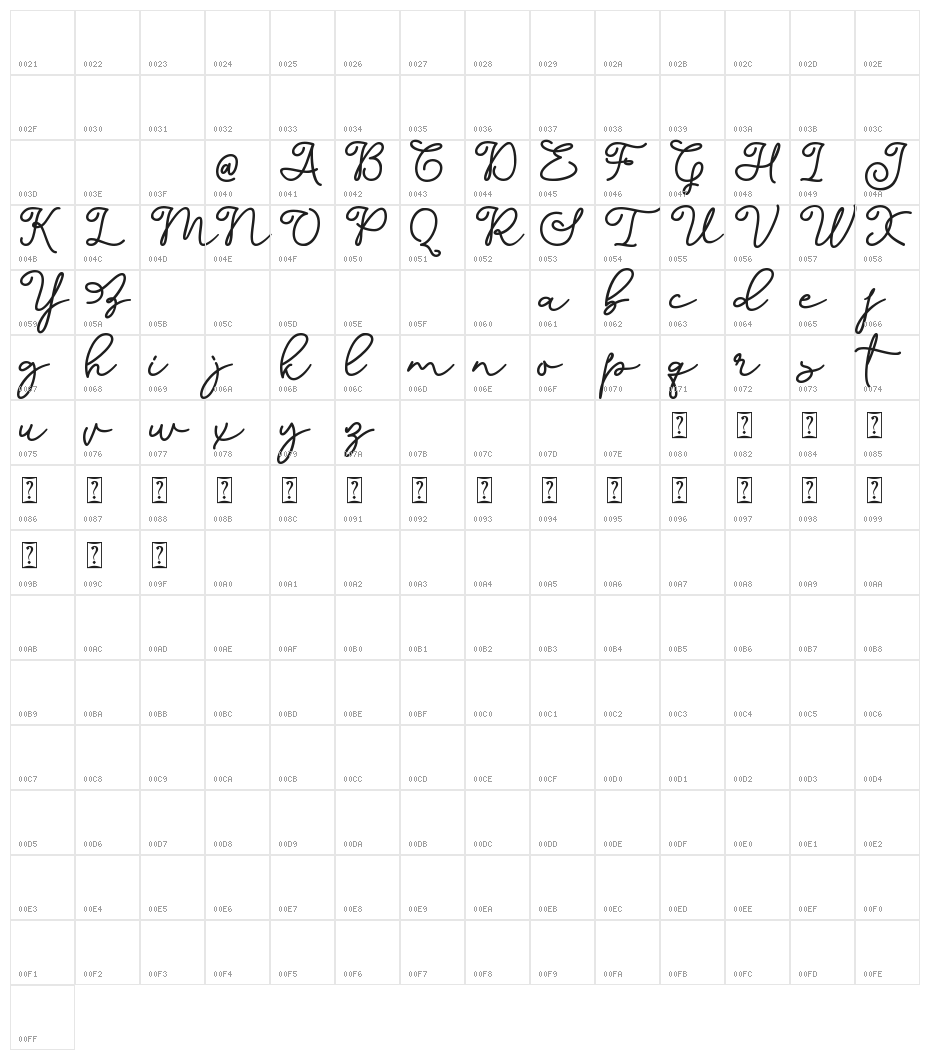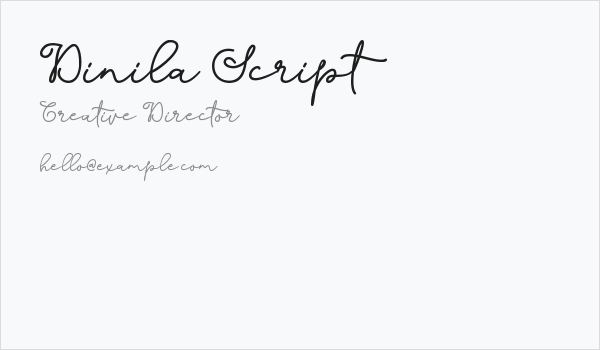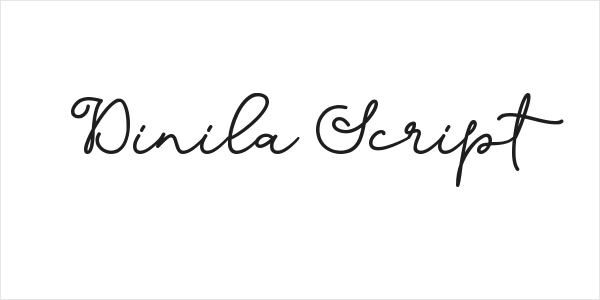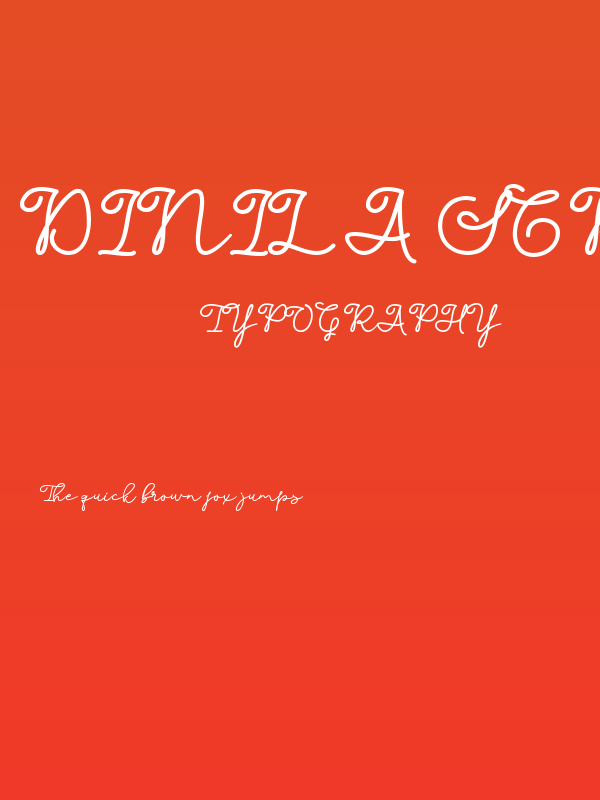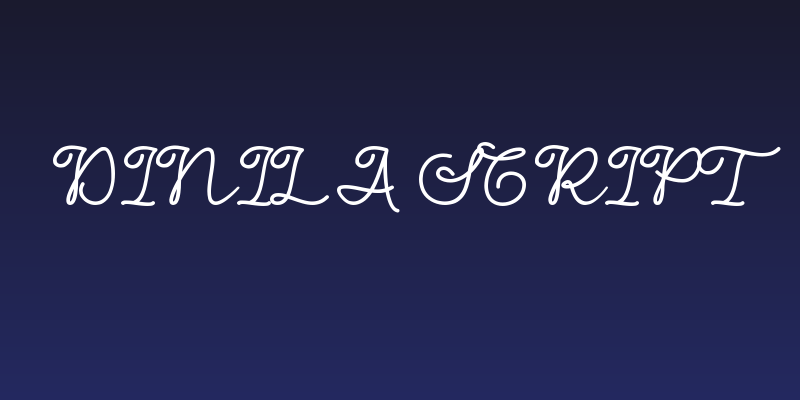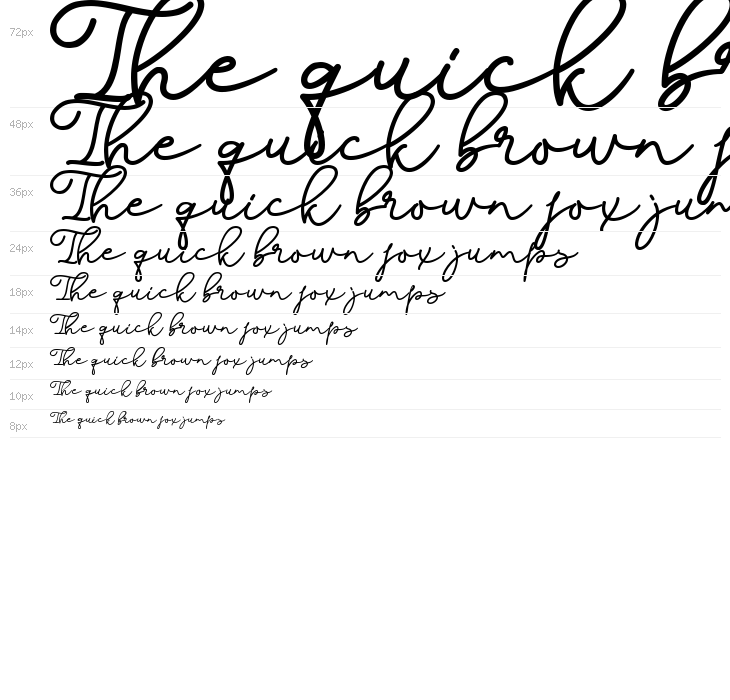
Dinila Script Font
Dinila Script Description
This elegant script font features a flowing, cursive style with smooth, connected strokes that create a sense of fluidity and grace. The uppercase letters are ornate, with intricate loops and swirls that add a decorative touch, while the lowercase letters maintain a more streamlined appearance, enhancing readability. The font's overall design is sophisticated and stylish, making it suitable for a variety of creative applications. Its delicate curves and balanced proportions give it a timeless appeal, perfect for projects that require a touch of elegance and refinement.
| Overall Style | Elegant |
| Use Case | Logos, Invitations, Decorative text |
| Proposed Projects | Ideal for wedding invitations, greeting cards, branding, and elegant logo designs. |